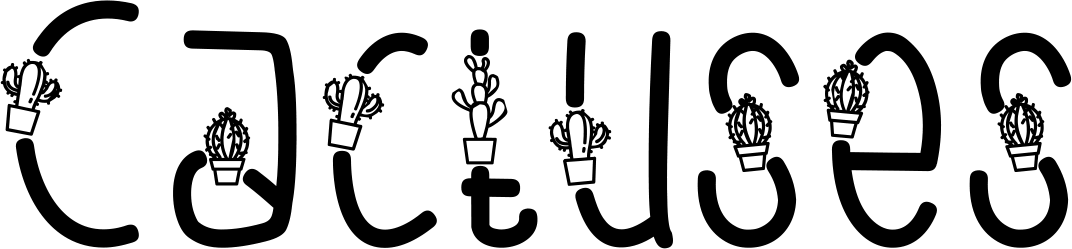
Cactuses Font
Cactuses is cute and cartoony fun font. It’s a cactus font that makes an excellent choice if you want your texts to appeal to kids and adolescents and give off friendly, cute vibes. You can use Cactuses font in writing comic books and drawing illustrations as well as hand-letterings, comic print T-shirts, and so on.